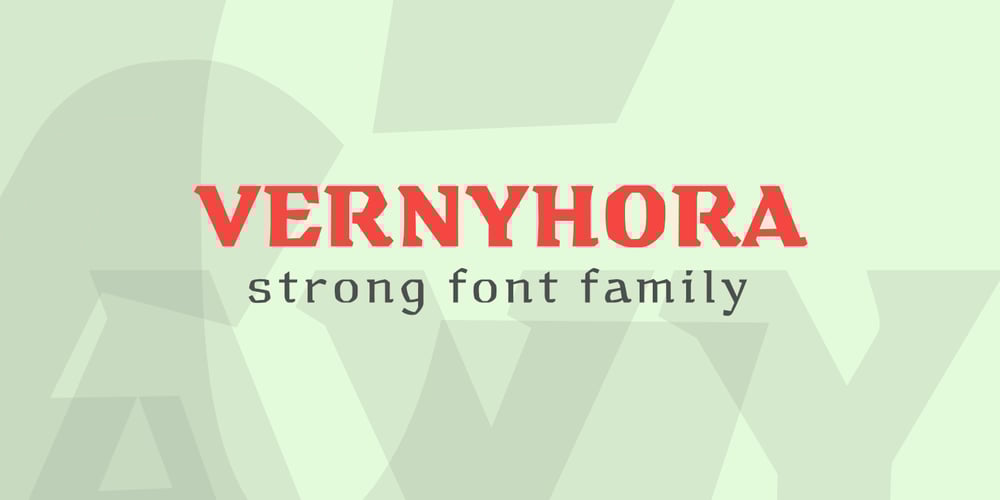
Vernyhora Font Family was designed by Bohdan Hdal and published by Bohdan Hdal. Vernyhora contains 6 styles and family package options. The vintage display font family Vernyhora. The typeface is intended to be used in those places where the letters when it is necessary to transmit the strong character, stability and historicity. The font has got 6 weights. It contains extended Cyrillic and Latin alphabets. It also consists of the alternative set of characters from the old Ukrainian alphabet. It can be used for the state institutions names. It was planned to be a font of old cities and towns. From the very beginning the font was created in order to execute signboards at the entrance of towns. For the font creation the author was inspired by the graphic designers of the early 20th century, such as Georgiy Narbut and Fedir Krychevs’kyi. From the Ukrainian language the font name is translated into English as mountains mover.